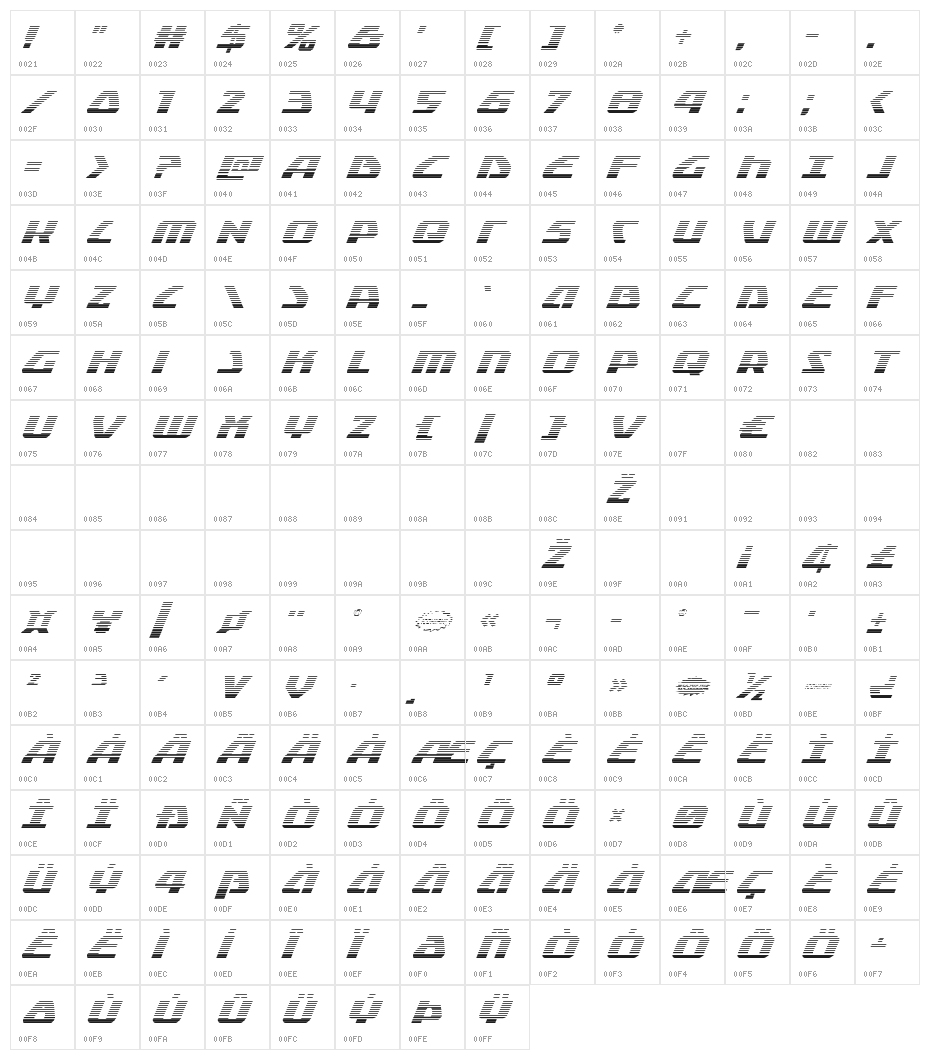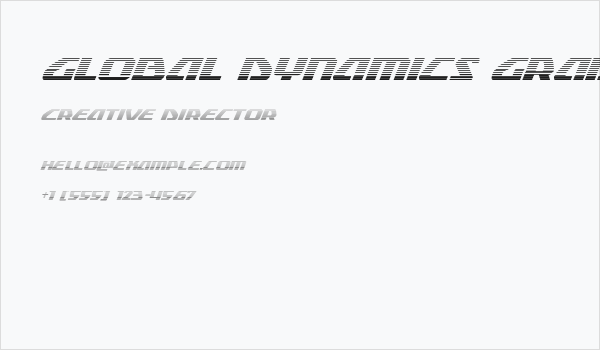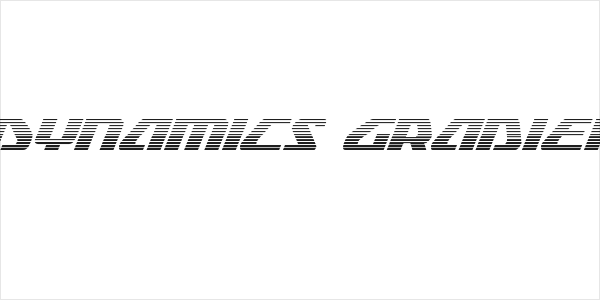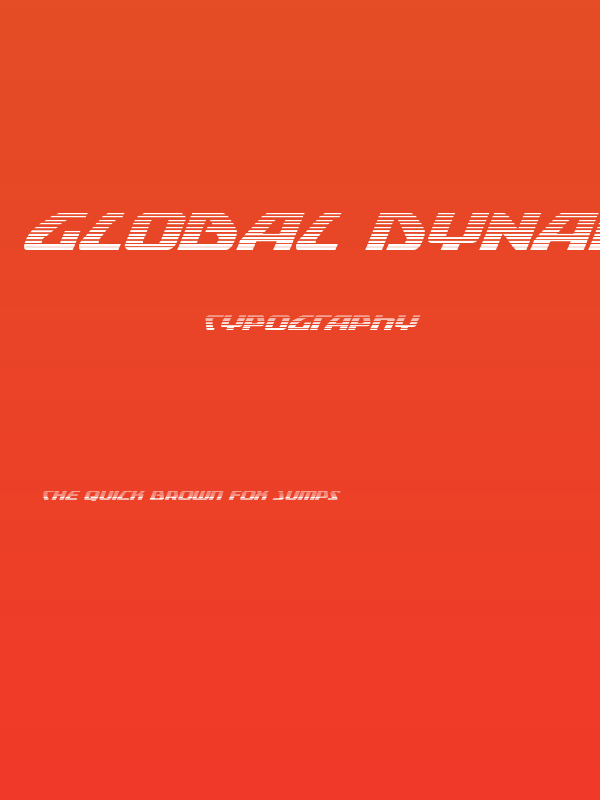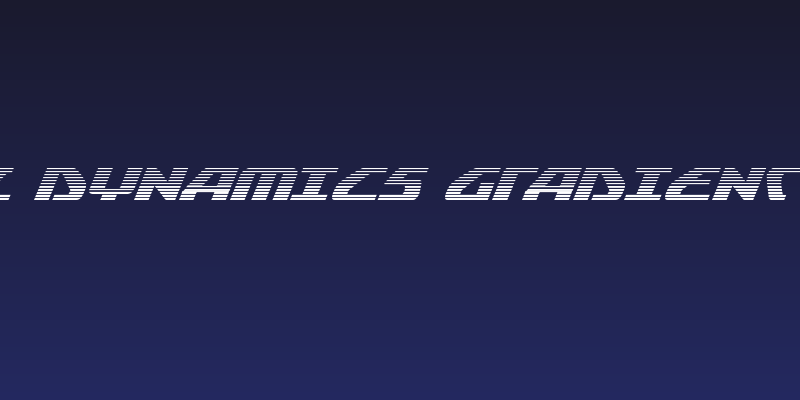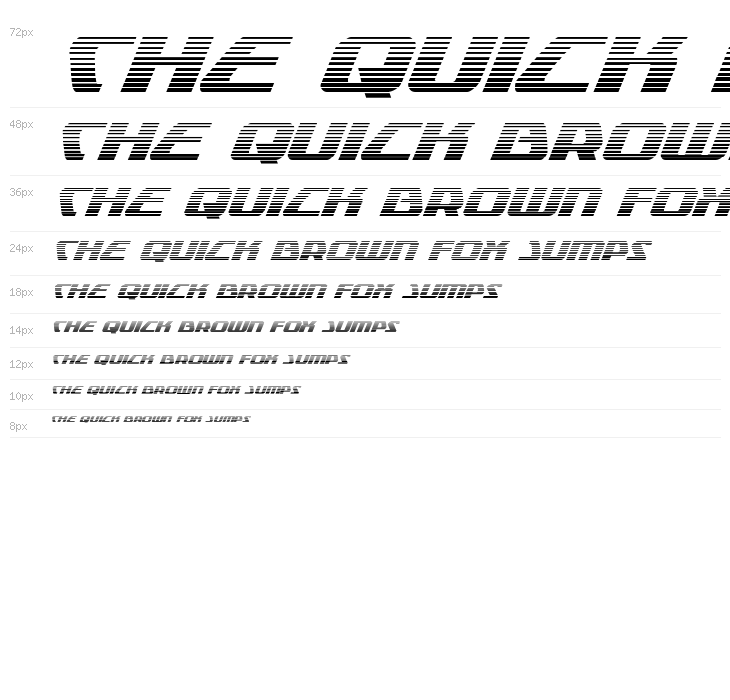
Global Dynamics Gradient Italic Font
Global Dynamics Gradient Italic Description
This font features a dynamic and futuristic design with a gradient effect that gives each character a sense of movement and speed. The italicized style enhances its modern and sleek appearance, making it ideal for projects that require a bold and innovative look. The characters are composed of horizontal lines that create a striped pattern, adding depth and texture. This unique design is perfect for capturing attention and conveying a sense of forward-thinking and technology-driven themes.
| Proposed Projects | Ideal for technology branding, sci-fi posters, video game titles, and modern advertising campaigns. |